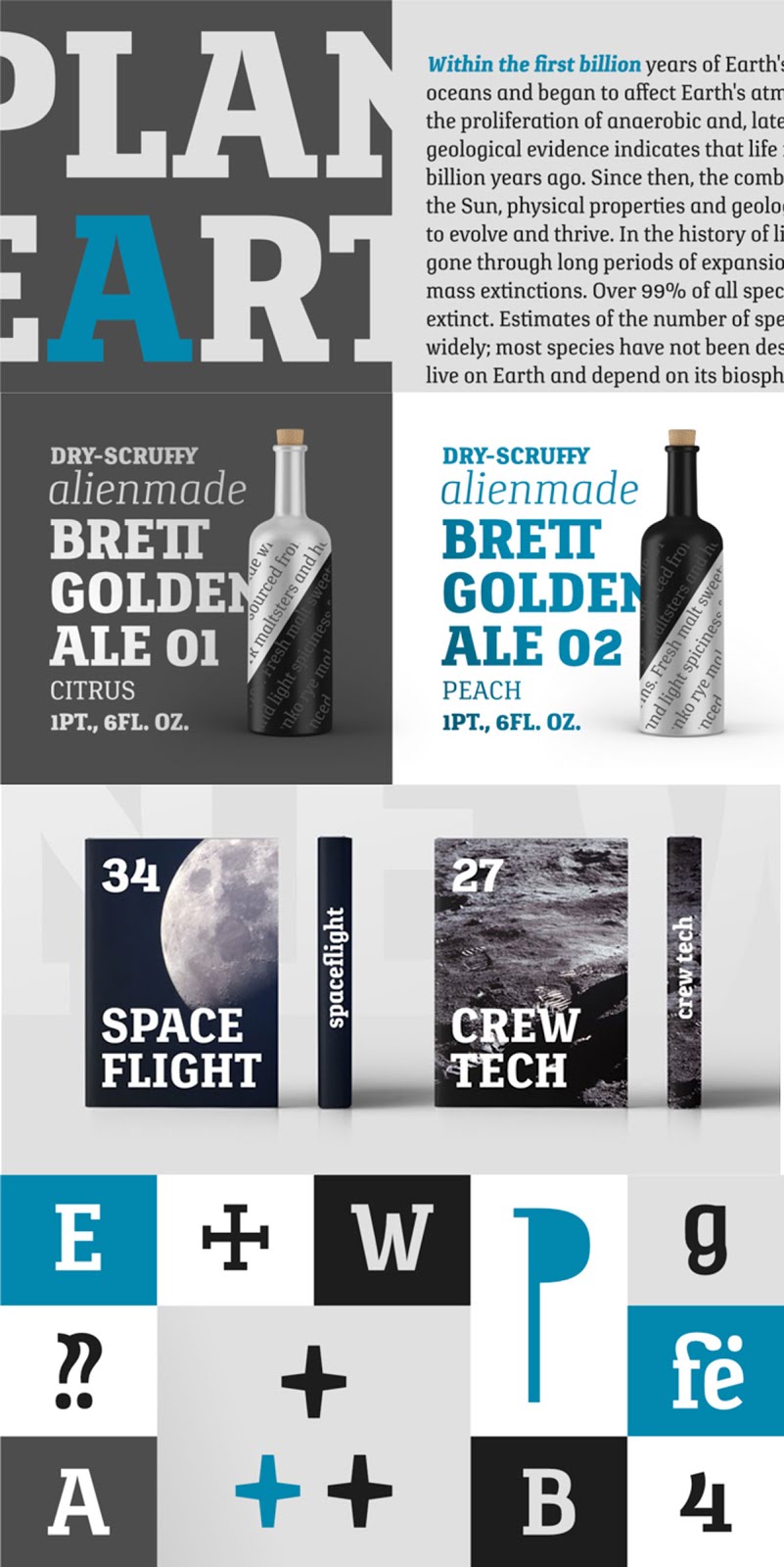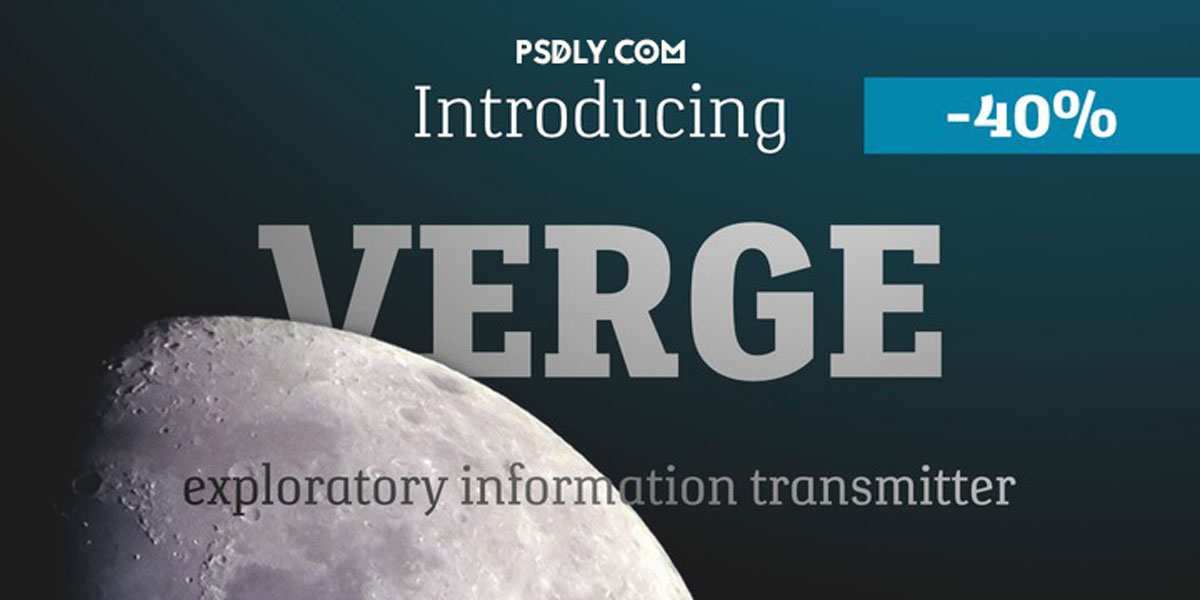
Verge Font Family
Its fairing is designed with a new technique that adds better stability to the curvature. It is prepared for all environments and communicates with minimized latency.
The letters of this contemporary slab serif are compact, clear and rather simple. It is suitable for branding, longer texts, information graphics and signalization. The typeface’s x-height is a little above 70% of its capitals. The italics are designed at a 7° angle.